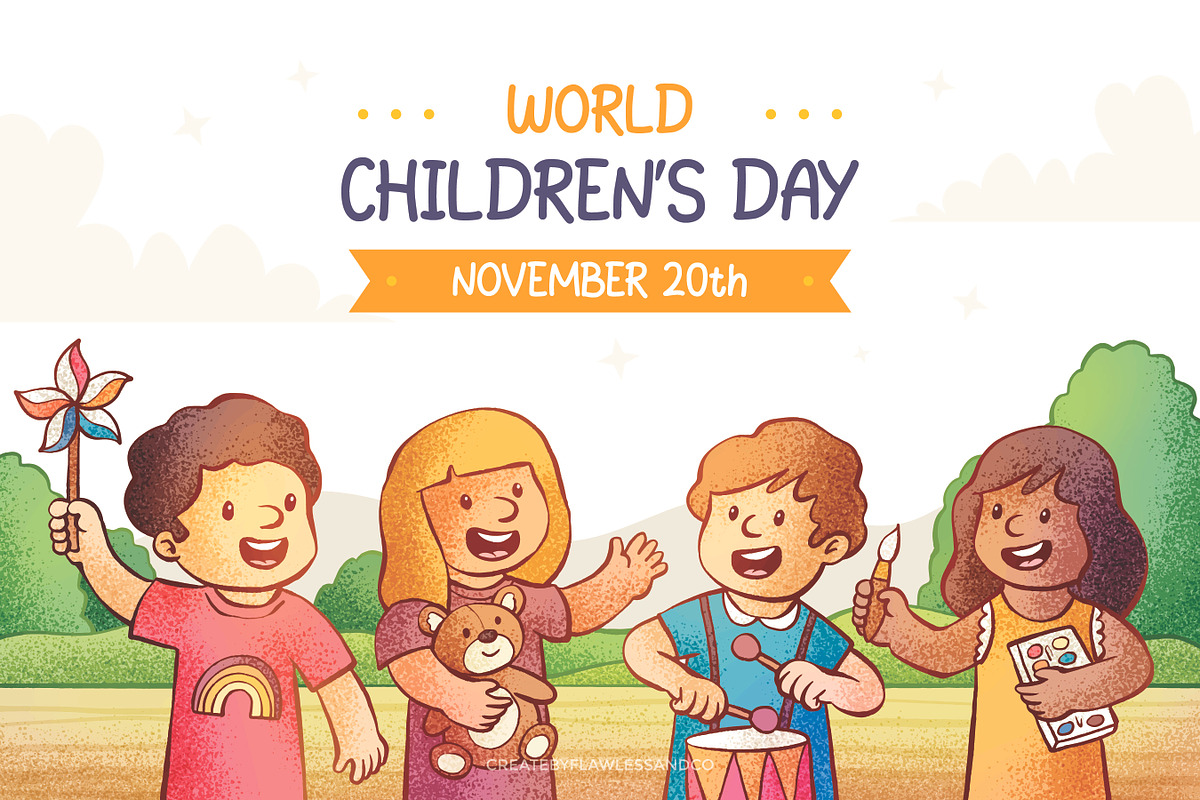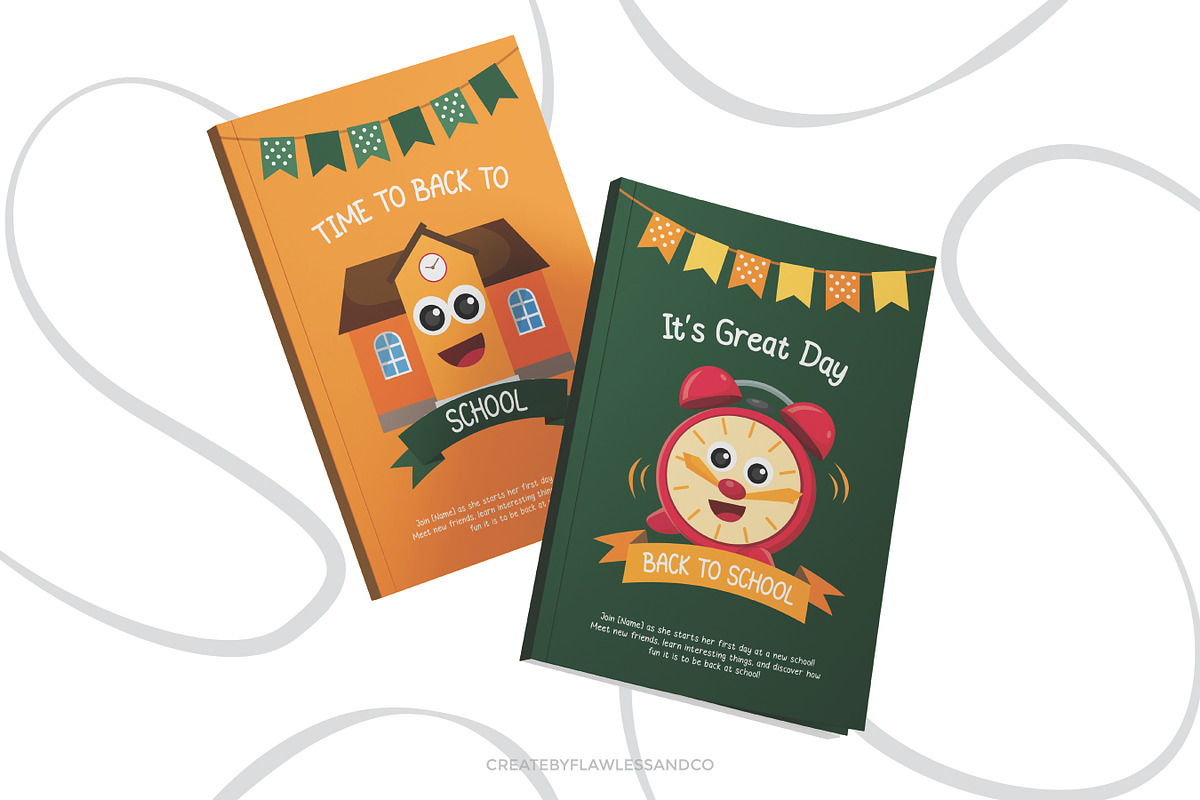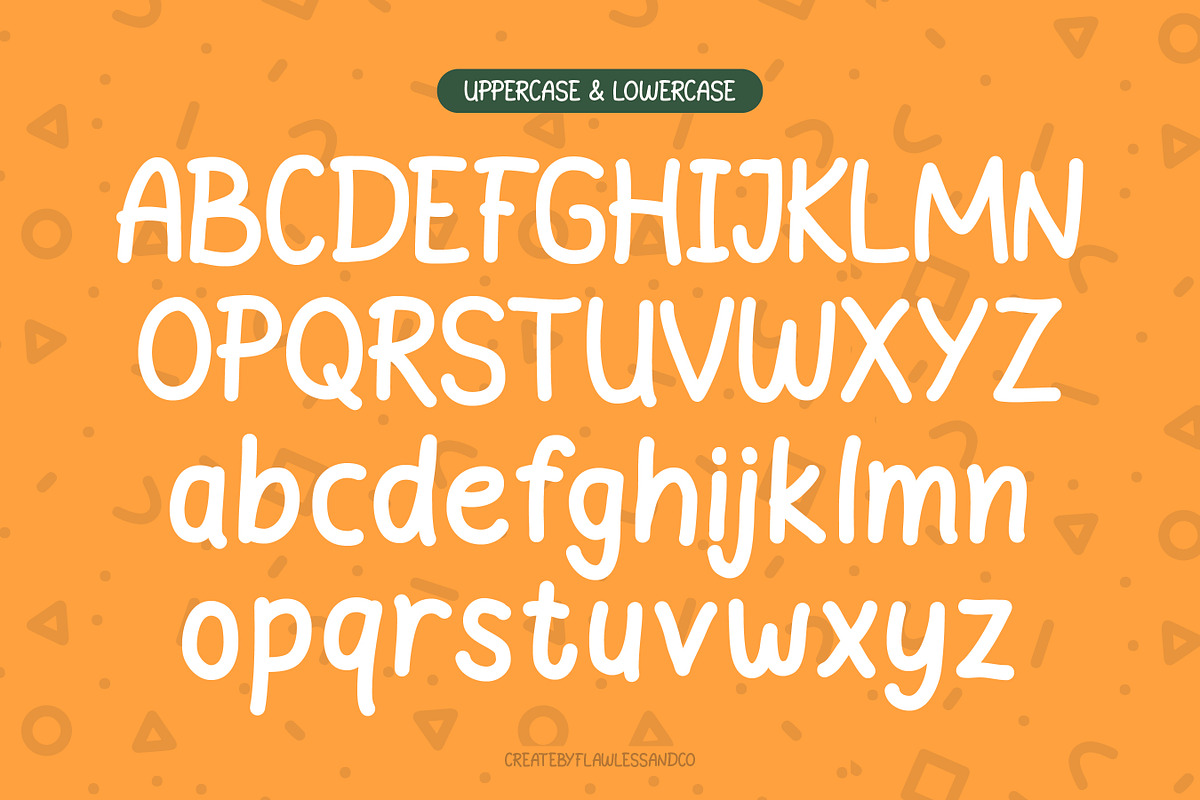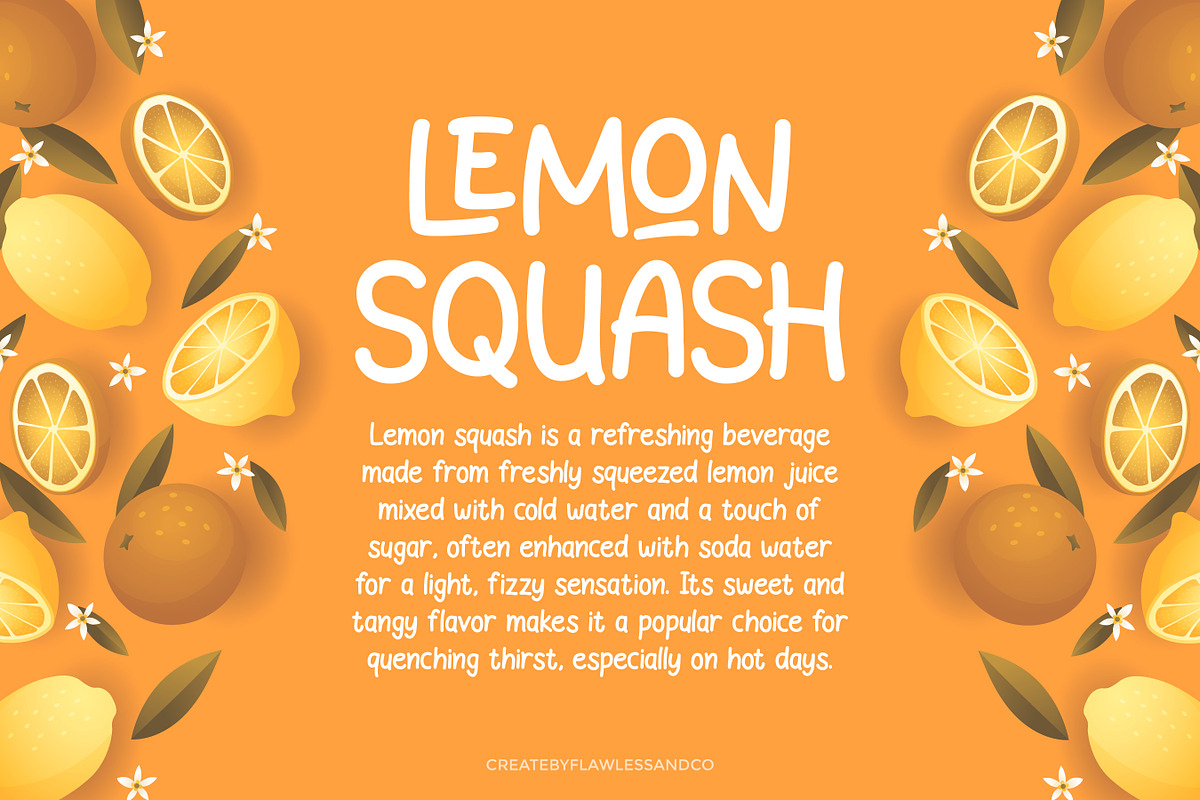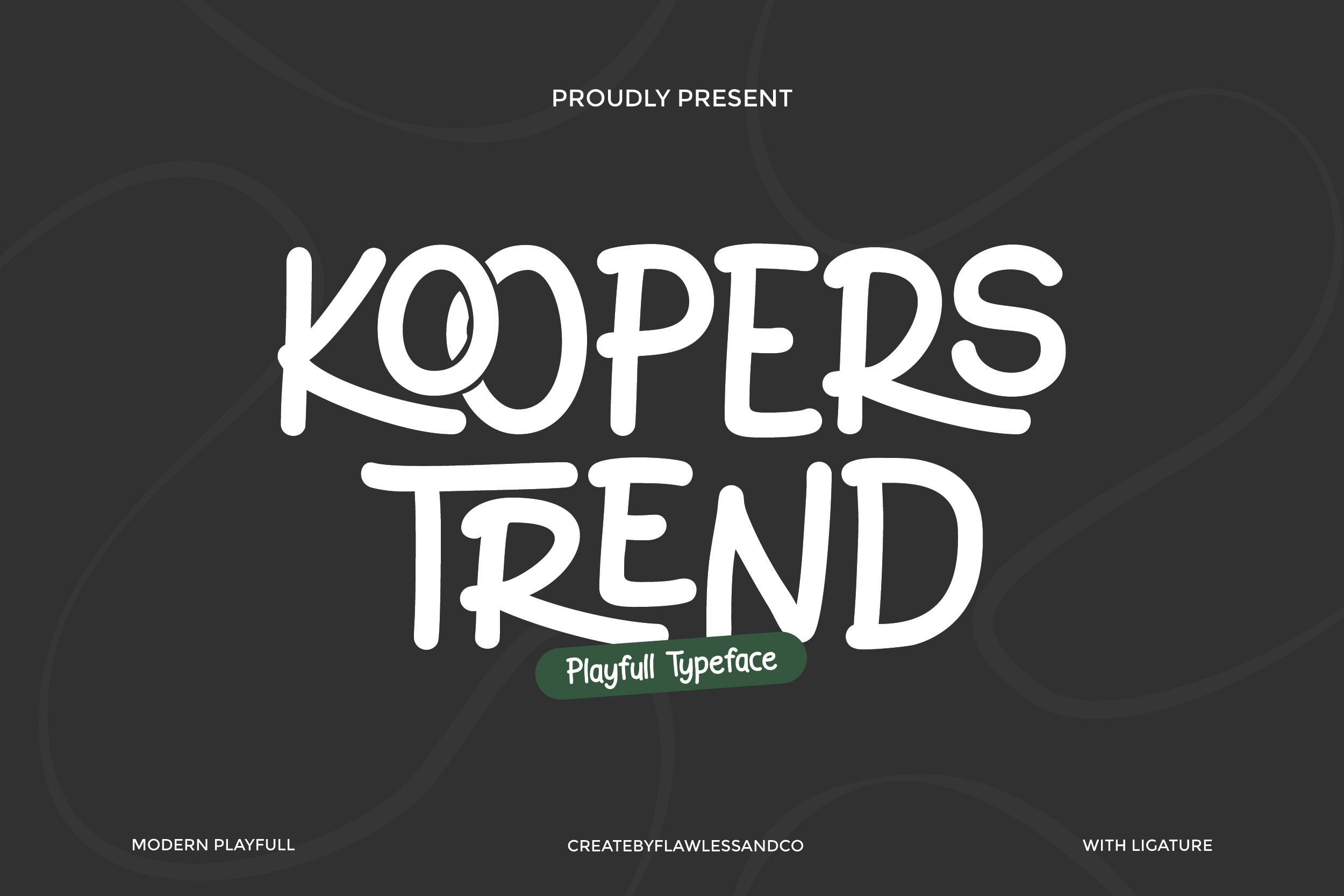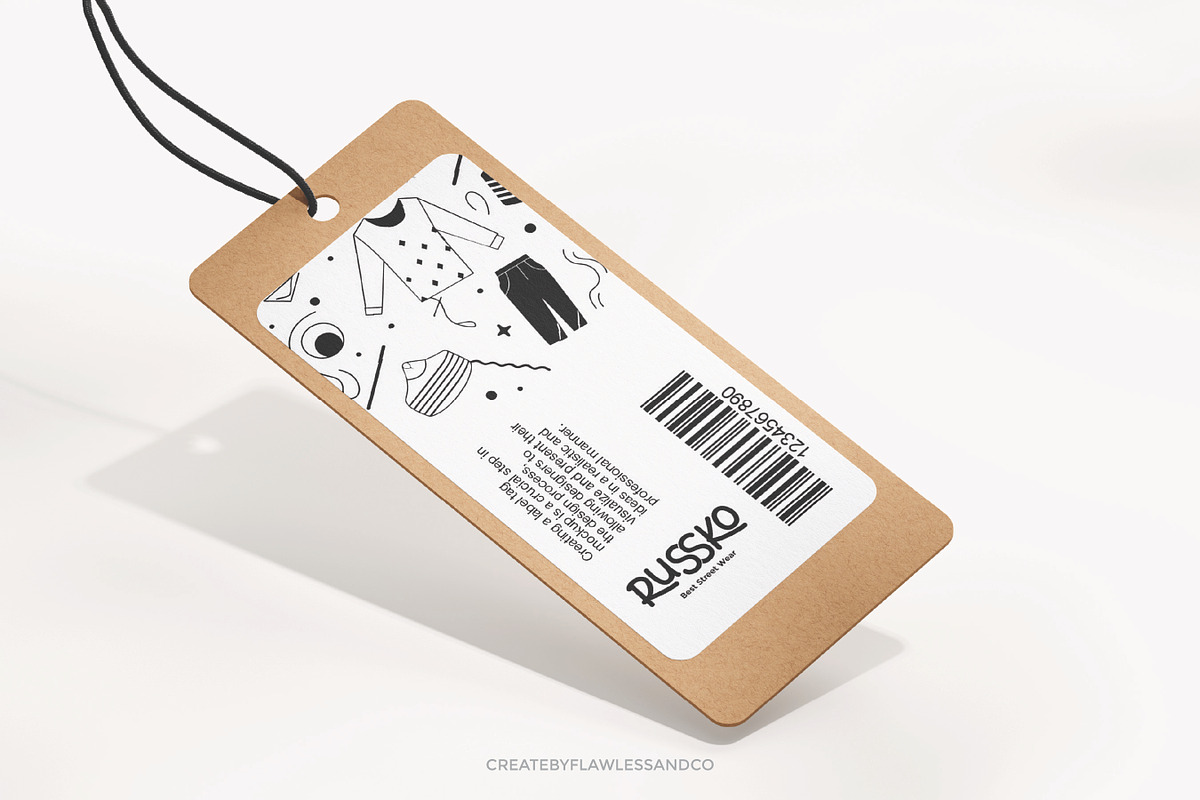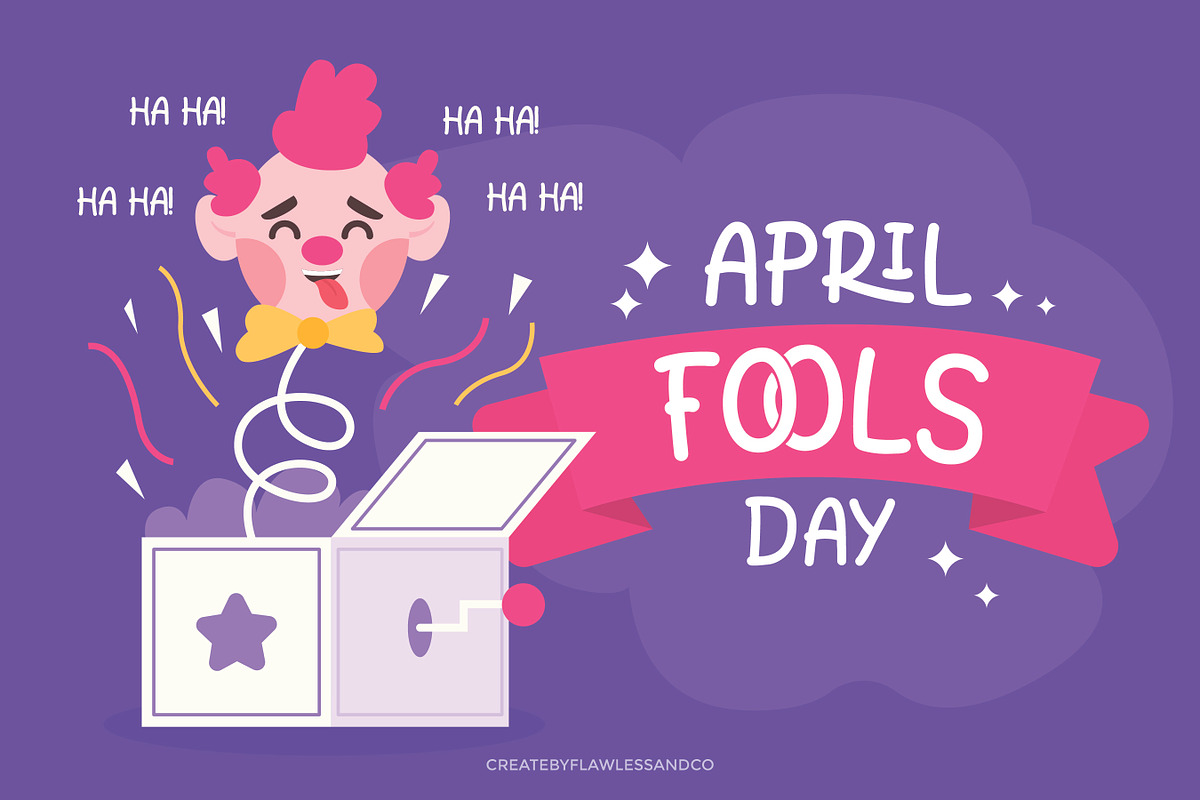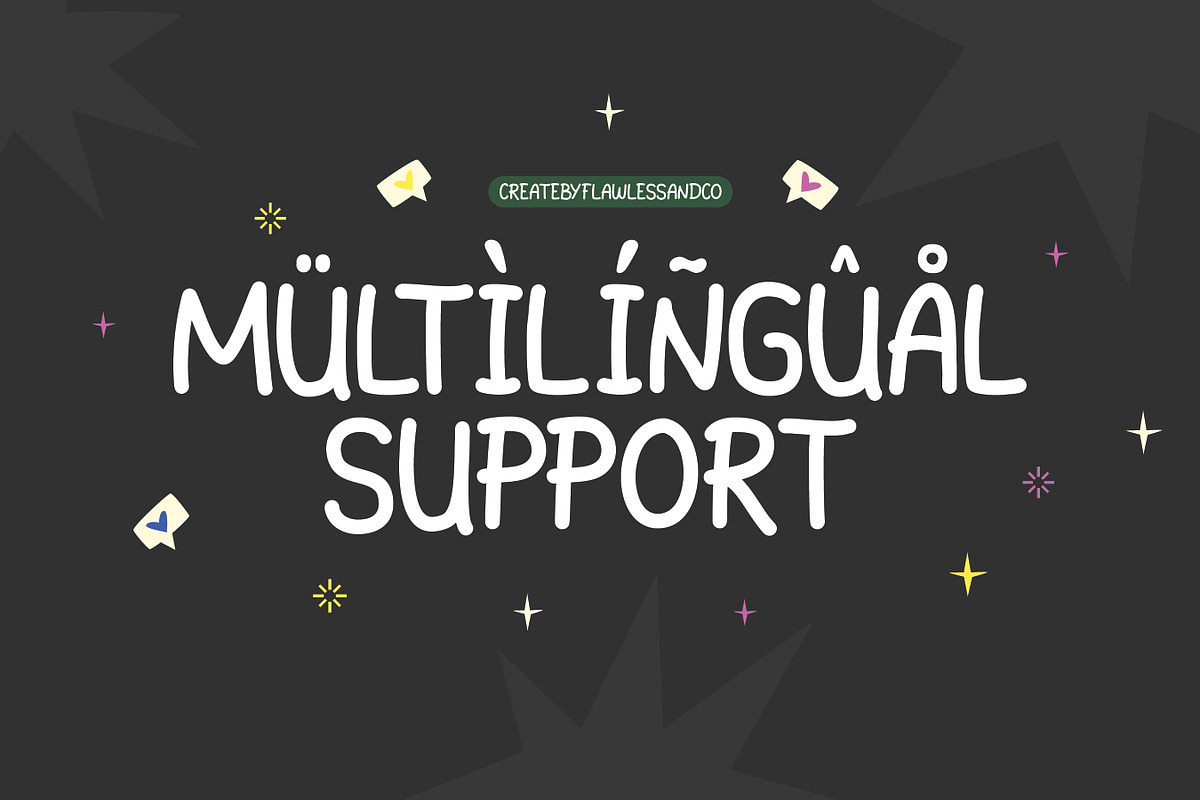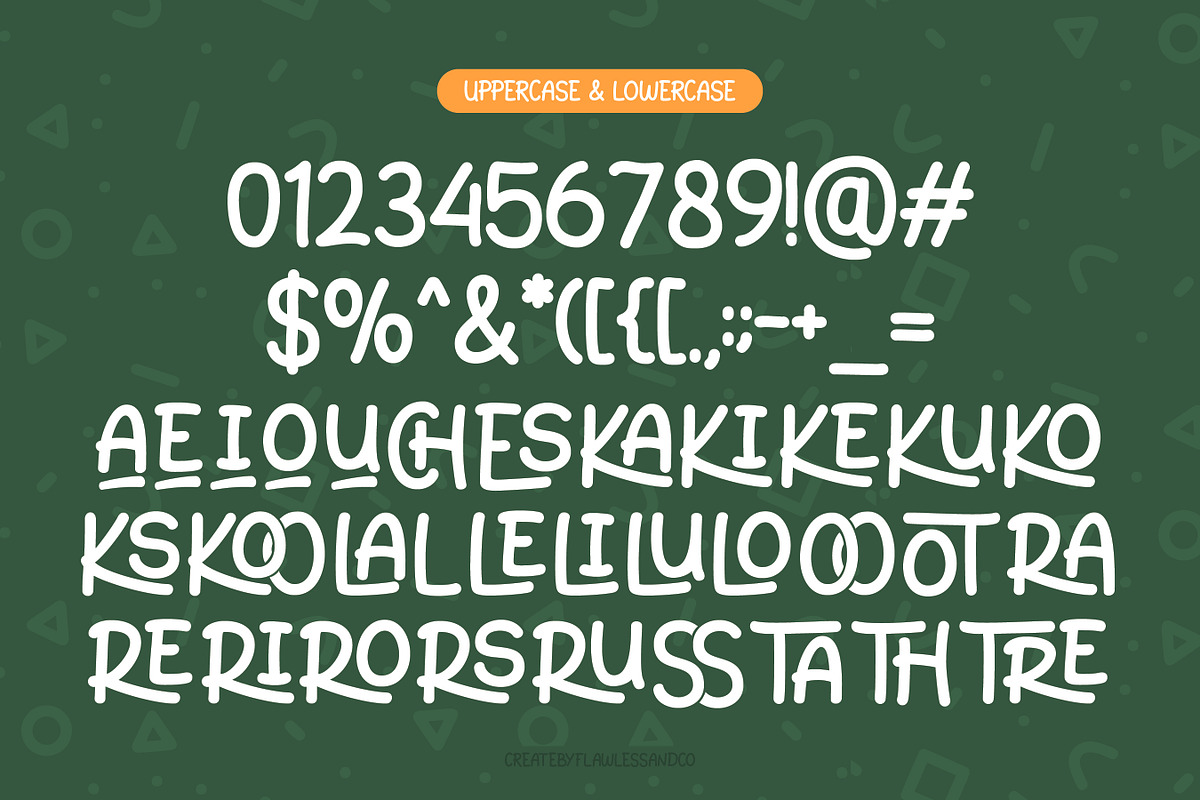
Koopers Trend - Handwritten Font
Koopers Trend – Playful Handwritten Font
Koopers Trend is a handwritten display font that blends casual charm with a bold and cheerful personality. Inspired by retro pop aesthetics and modern lifestyle branding, Koopers Trend stands out with its rounded edges, smooth strokes, and hand-crafted vibe. Designed for projects that aim to feel fun, vibrant, and approachable, Koopers Trend is perfect for youthful branding, social media graphics, packaging, t-shirt designs, music posters, and more. Its quirky yet clean letterforms bring a lively rhythm and informal elegance to your compositions. Every character is drawn with a friendly attitude, offering a unique balance between playfulness and clarity—making your message feel both standout and personal. With alternate characters and stylish ligatures included, Koopers Trend gives you creative freedom to play with variation and personality in every design.
Use Koopers Trend to create designs that radiate positivity, creativity, and bold handcrafted energy.
Who Should Use Koopers Trend?
Koopers Trend is the perfect choice for designers, creatives, and brands who want to infuse their work with a playful, expressive, and handcrafted touch. Whether you're working on personal projects or professional campaigns, this font brings an energetic personality that connects with modern audiences. Use Koopers Trend if you're:
- A brand designer creating youthful or lifestyle-focused identities
- A content creator or influencer designing engaging social media visuals
- A merchandise artist making t-shirts, stickers, or tote bags with a quirky vibe
- A poster or cover designer looking to grab attention with friendly, fun typography
- A small business owner who wants a brand voice that's approachable and bold
From packaging to posts, Koopers Trend helps your message feel fresh, friendly, and unforgettable. It's especially great for DIY-style designs, retro-inspired visuals, or anything that celebrates creativity and character.
A Must-Have Font for Brand, Logo, Poster, and Kids Book Creators
Koopers Trend is a must-have typeface for anyone crafting designs that need to feel fun, approachable, and full of personality. With its natural handwritten charm, this font adds a human touch that instantly brings warmth and creativity to any layout. Whether you're designing for:
- Bold and playful brand identities
- Eye-catching logos that stand out
- Creative posters and event graphics
- Whimsical and engaging kids books
Koopers Trend delivers a stylish balance of expression and readability. It’s the kind of font that makes your work not only look great—but feel alive. Designed with versatility in mind, Koopers Trend fits seamlessly into both professional projects and passion pieces, making it an essential tool for modern creatives.
Why Choose Koopers Trend for Brand, Logo, Poster, and Kids Book Projects?
Koopers Trend isn’t just another handwritten font—it’s a creative asset designed to bring authenticity, charm, and originality to your work. Here’s why it’s a perfect fit:
- Natural Handwritten Feel Its casual strokes and smooth flow make every word feel personal and inviting—ideal for creating brands with soul and logos with character.
- Versatile Yet Distinctive Whether you’re working on a bold poster or a playful kids book, Koopers Trend adapts effortlessly—while still keeping a unique visual identity.
- Easy to Read, Fun to Use With clean letterforms and consistent rhythm, it’s both legible and expressive, making your designs pop without sacrificing clarity.
- Built-In Alternates and Ligatures Add variety and flair to your typography with thoughtful extras that give your text a handcrafted, custom-made feel.
- Perfect for Kids-Focused Design Its playful energy and friendly style make it an ideal choice for children’s books, learning materials, and playful branding.
Whether you're a brand designer, illustrator, or creative entrepreneur, Koopers Trend offers the right mix of creativity and usability to elevate your next project.
Suitable For: Koopers Trend is perfect for a wide range of creative projects, including brand identities, logo design, posters, kids' books, greeting cards, packaging, merchandise, and social media graphics. Its playful handwritten character makes it especially great for fun, friendly, and approachable design work—ideal for children's content, lifestyle brands, and anything that needs a touch of personality and charm.